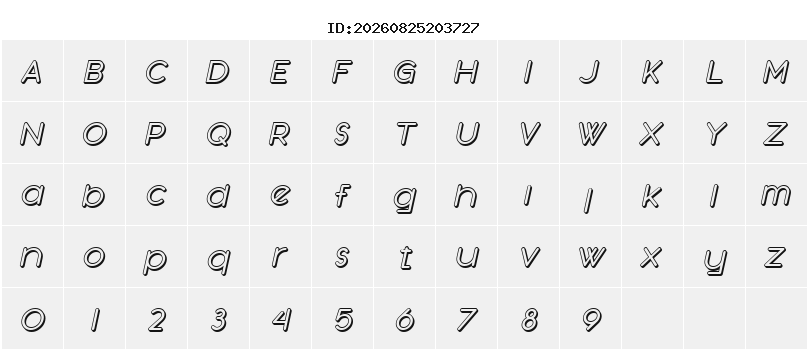
SF Orson Casual Shaded Preview
• Font Name: SF Orson Casual Shaded
• Font Style: Oblique
• Full Font Name: SF Orson Casual Shaded Oblique
• Designer: ShyFonts Type Foundry
About SF Orson Casual Shaded.ttf
SF Orson Casual Shaded.ttf is a modern, elegant sans-serif font designed for ultimate readability and visual harmony. Perfect for branding, headlines, web design, and print materials.